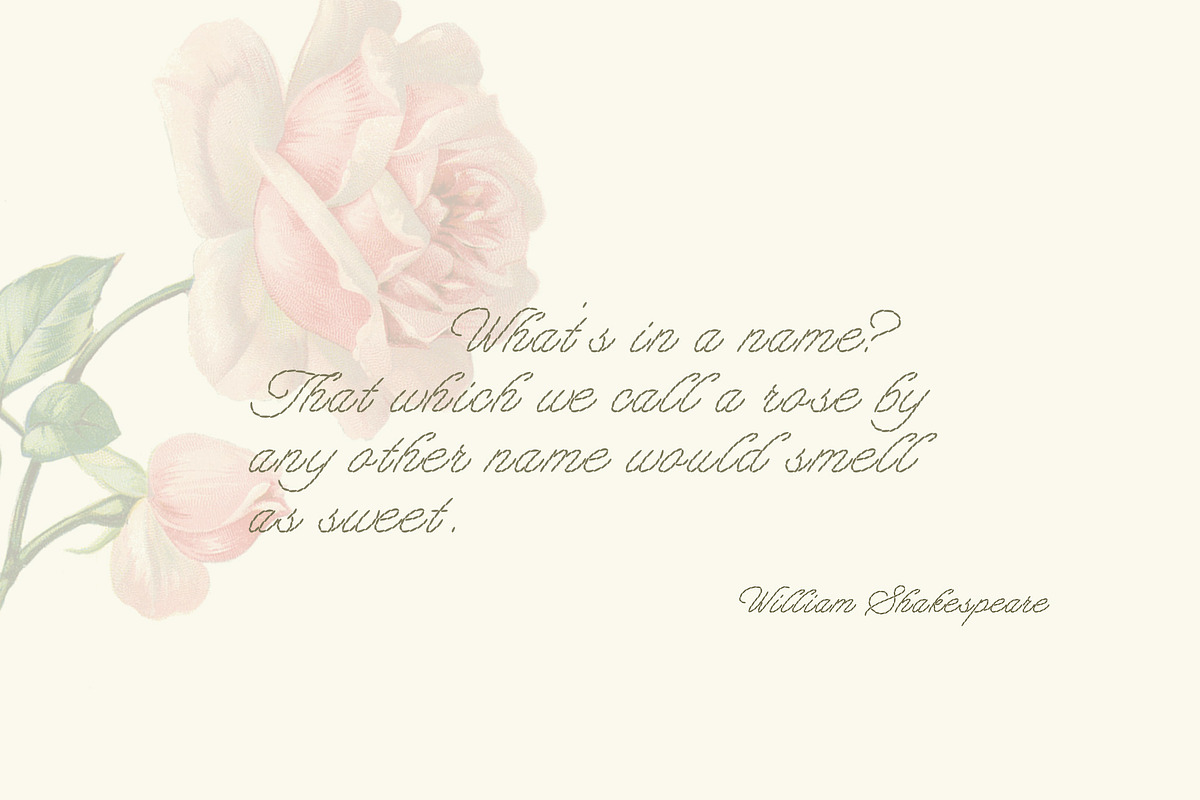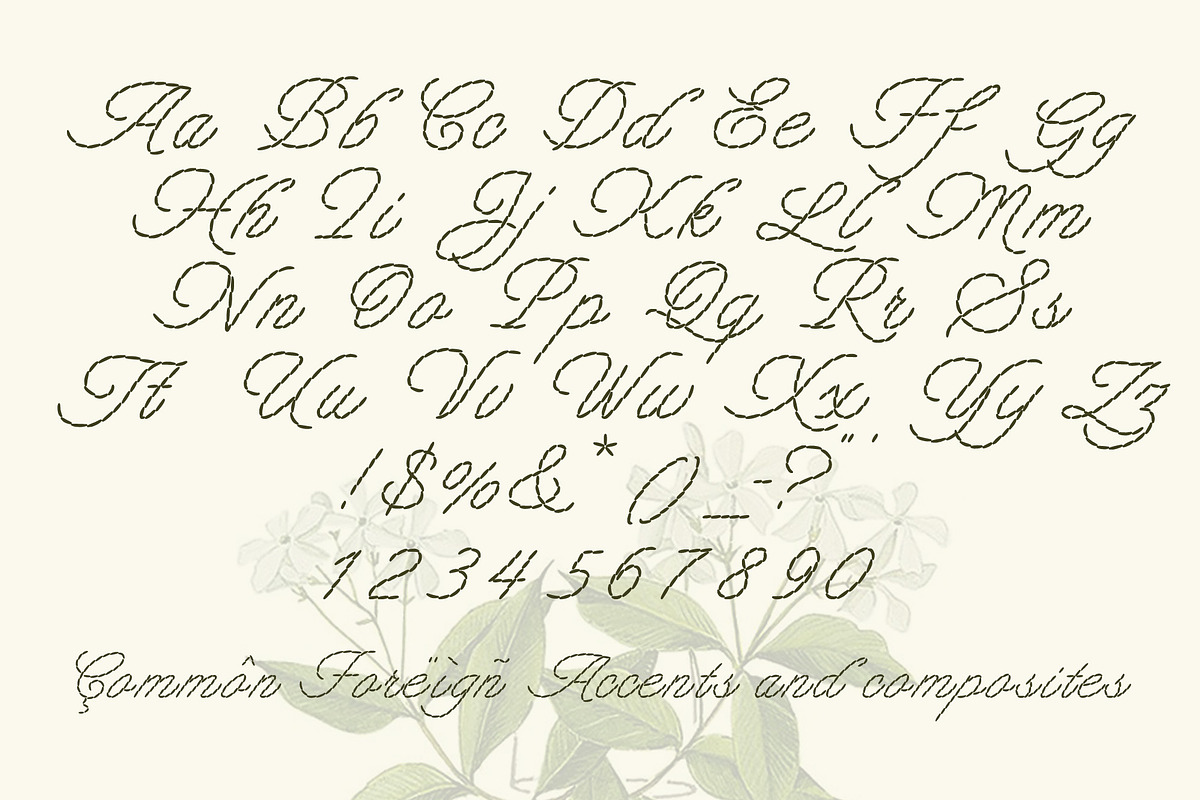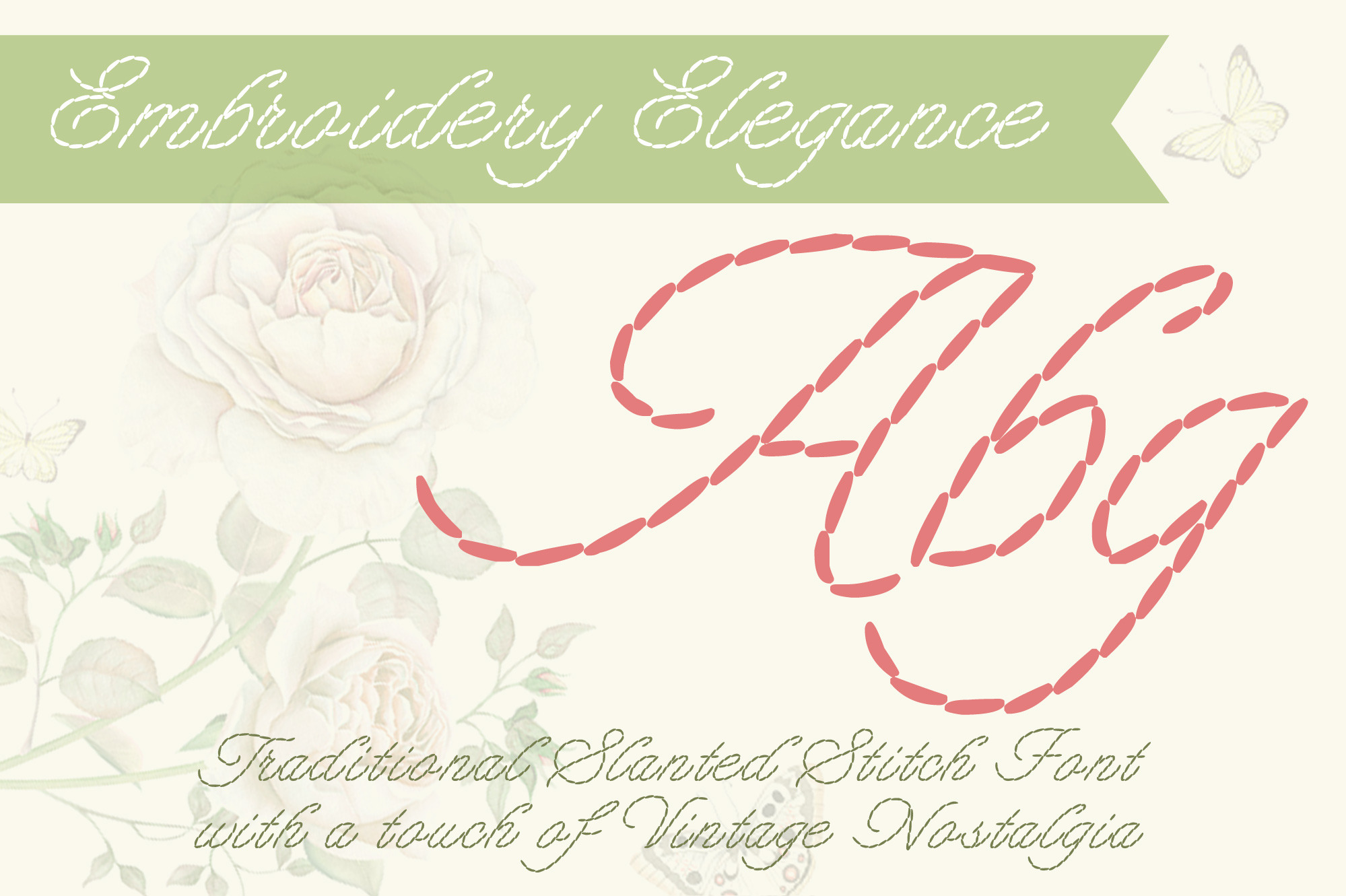
Embroidery Elegance Stitch Font
Slanted cursive faux-stitches lettering, script with sewing stitches forming the characters. Elegant vintage style traditional hand-written style of stitches calligraphy. Ideal for use in patterns and guides for hand embroidery, for cottagecore wedding, birthday and similar celebration stationery.